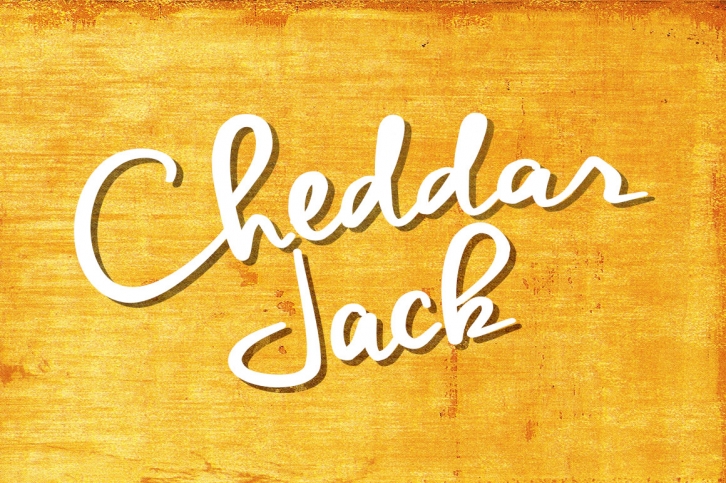
Cheddar Jack is a gorgeous font that was realeased on June 23, 2018. The font can be used in many style contexts and design environments. Perfect for invitations, magazines, websites, logos, and more! It was designed by Brittney Murphy Design and the file size is 2.37 MB. Thanks for checking out this font!